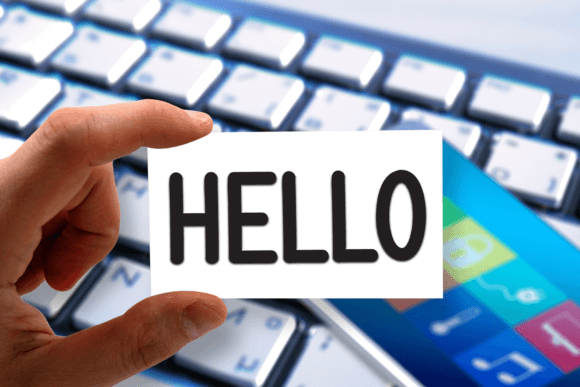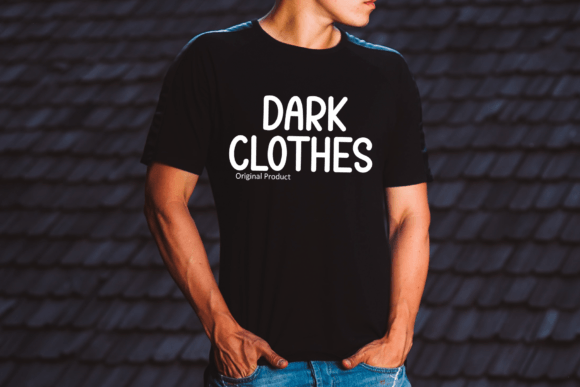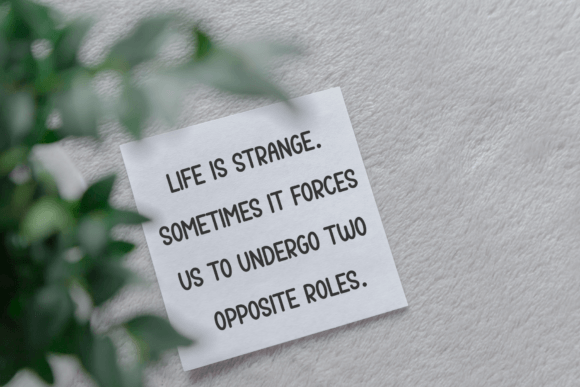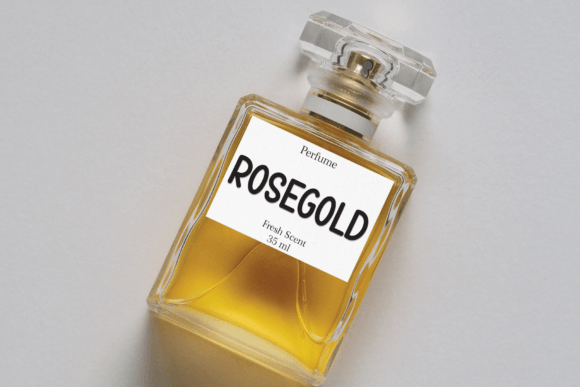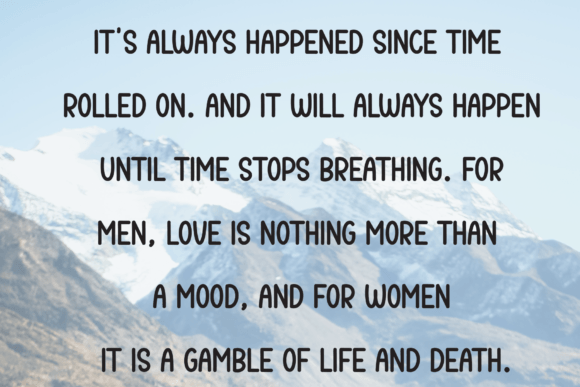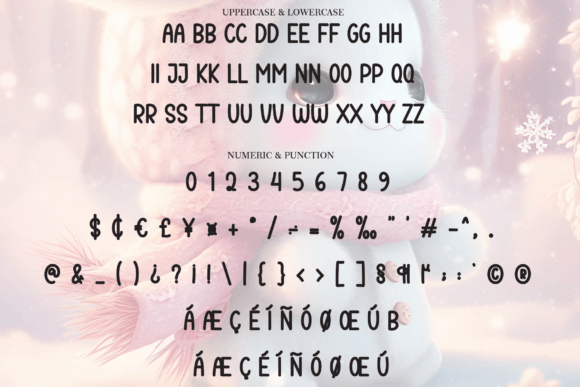
Cuteness Font: Add a Sweet and Friendly Touch to Your Designs
Are you looking for a font that can add a fun and playful touch to your designs? Look no further than Cuteness Font! This sweet and friendly handwritten font is perfect for creating beautiful wedding invitations, cards, and other designs that require a personal and whimsical touch.
What is Cuteness Font?
Cuteness Font is a fresh and cute handwritten font that is designed to bring a smile to your face. Its playful and friendly style makes it ideal for a wide range of design projects, from wedding invitations and cards to social media graphics and blog posts.
Key Features of Cuteness Font
- Handwritten style: Cuteness Font has a beautiful handwritten style that gives it a personal and unique touch.
- Fresh and cute: The font’s fresh and cute design makes it perfect for creating designs that require a fun and playful touch.
- Easy to read: Despite its playful style, Cuteness Font is easy to read and understand, making it perfect for body text and headings.
- Versatile: Cuteness Font can be used for a wide range of design projects, from wedding invitations and cards to social media graphics and blog posts.
Uses of Cuteness Font
Cuteness Font is a versatile font that can be used for a wide range of design projects. Here are some of the most popular uses of this font:
- Wedding invitations: Cuteness Font is perfect for creating beautiful and unique wedding invitations that reflect the couple’s personality.
- Cards: Whether it’s a birthday card, a thank-you card, or a holiday card, Cuteness Font is a great choice for adding a personal touch.
- Social media graphics: Cuteness Font can be used to create fun and engaging social media graphics that stand out from the crowd.
- Blog posts: Add a playful touch to your blog posts with Cuteness Font, perfect for lifestyle, fashion, and beauty blogs.
Tips for Using Cuteness Font
Here are some tips for using Cuteness Font in your designs:
- Use it for headings and titles: Cuteness Font is perfect for headings and titles, adding a playful touch to your designs.
- Pair it with other fonts: Cuteness Font can be paired with other fonts to create a unique and interesting design.
- Experiment with colors: Cuteness Font looks great in a variety of colors, so don’t be afraid to experiment and find the perfect color for your design.
Cuteness Font is a sweet and friendly handwritten font that is perfect for adding a fun and playful touch to your designs. Its fresh and cute design makes it ideal for a wide range of design projects, from wedding invitations and cards to social media graphics and blog posts. With its easy-to-read style and versatile design, Cuteness Font is a great choice for designers and crafters looking to add a personal touch to their designs.